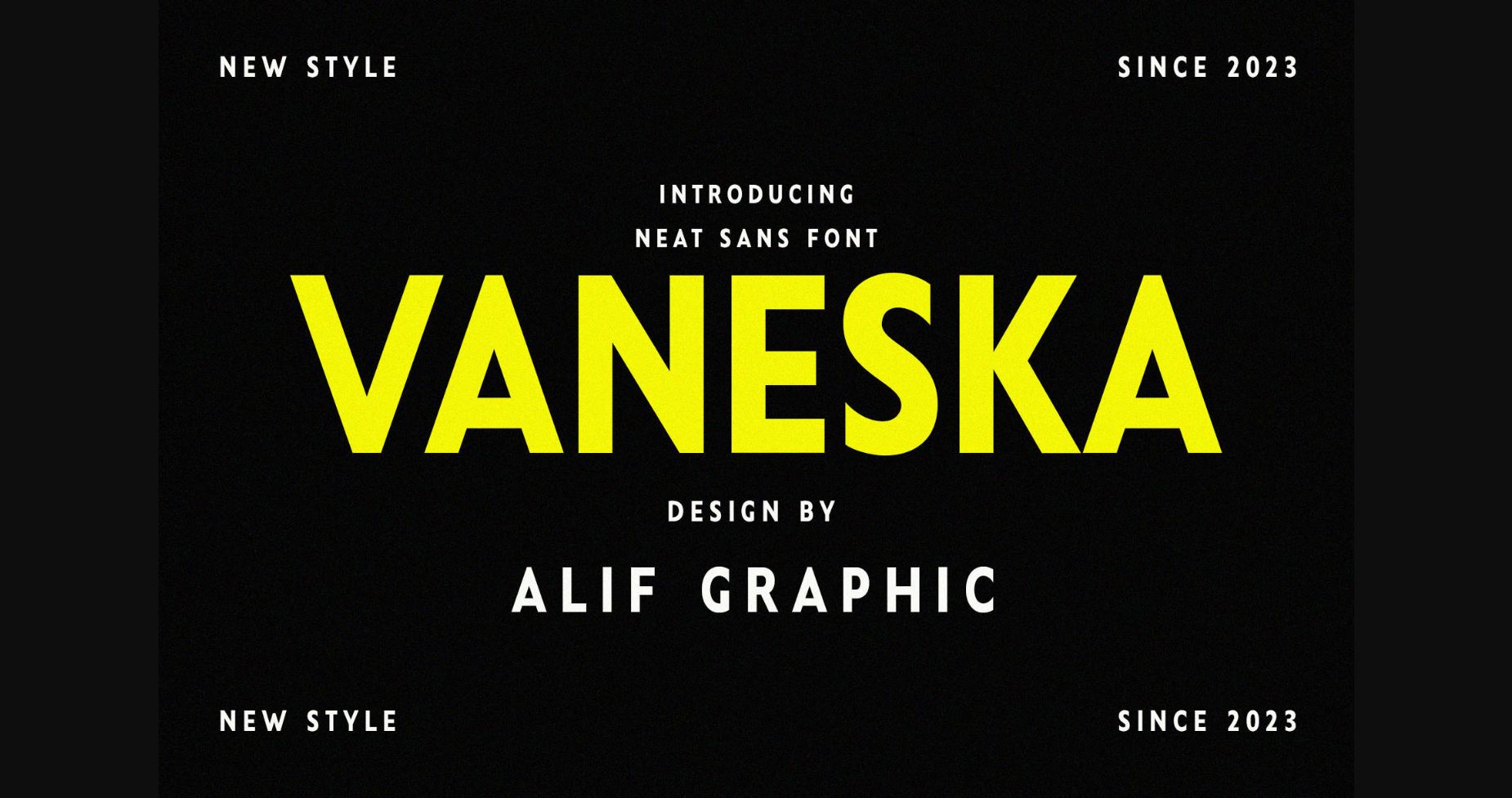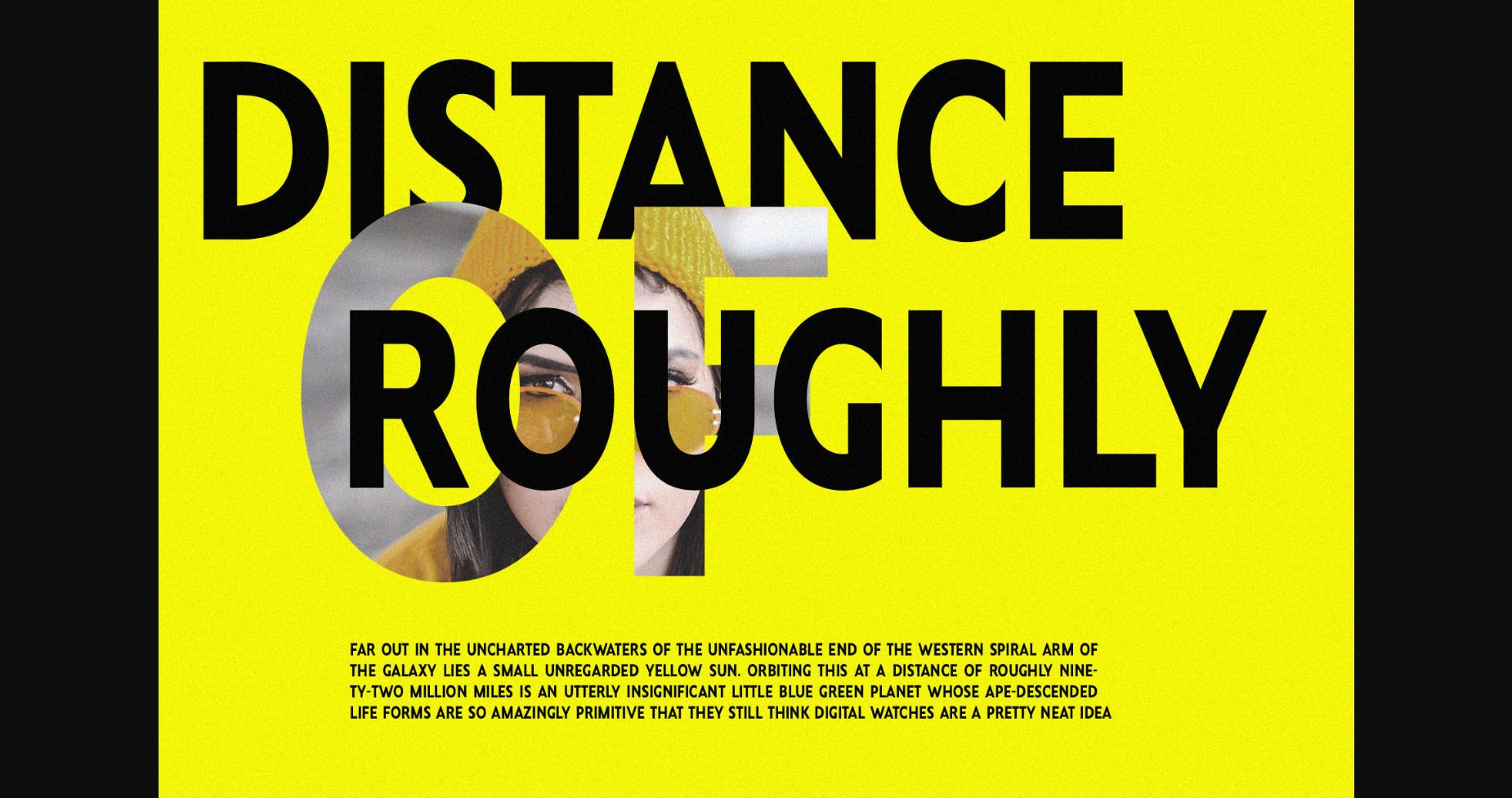
About Vaneska Font
Vaneska is a sleek and modern sans-serif font that exudes elegance and sophistication. With its clean and refined letterforms, this font is perfect for luxury branding, editorial designs, and fashion-oriented projects. Its balanced proportions and subtle curves create a harmonious and versatile typeface, making it an excellent choice for both display and body text.